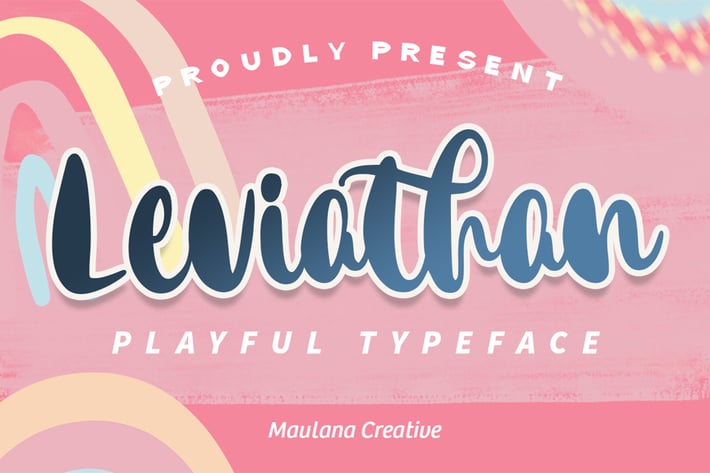
Leviathan Playful Typeface
Leviathan . With bold contrast stroke, fun character with a bit of ligatures and alternates. To give you an extra creative work. Crankstock font support multilingual more than 100+ language. This font is good for logo design, Social media, Movie Titles, Books Titles, a short text even a long text letter and good for your secondary text font with sans or serif. Make a stunning work with Crankstock font.